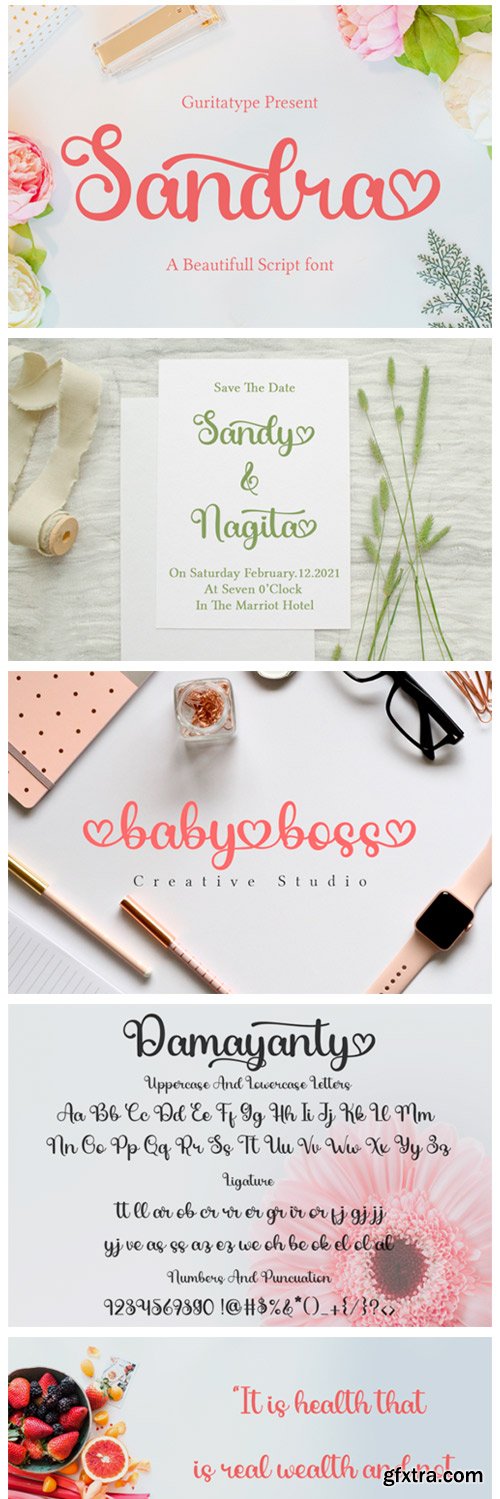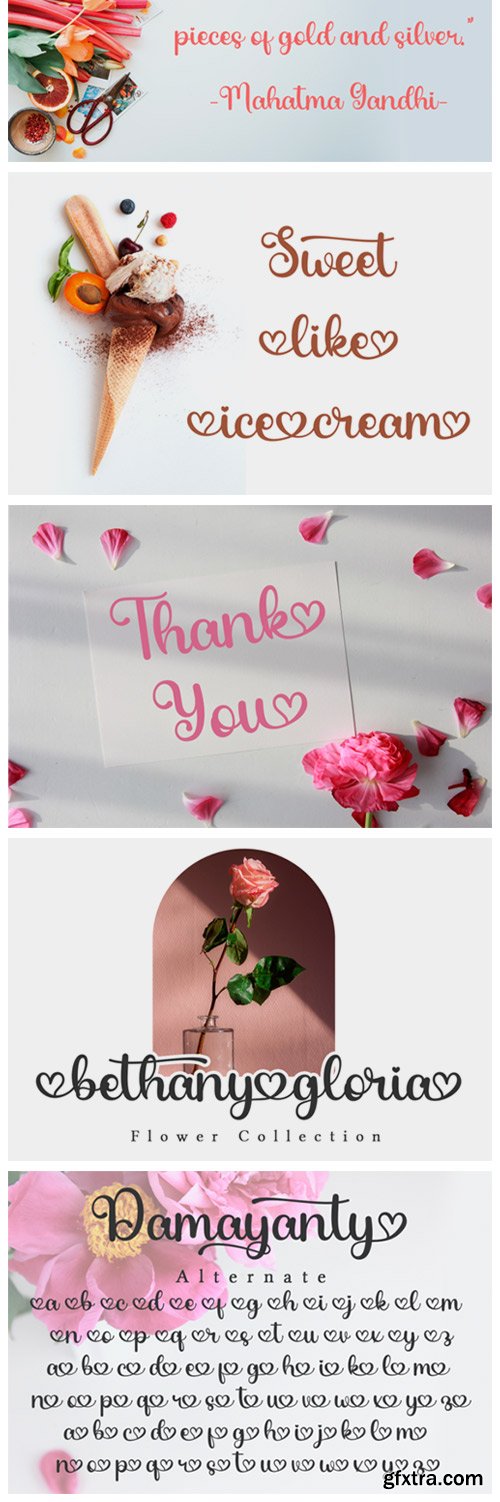
Sandra Font
Sandra is a smooth, elegant and flowing handwritten font. It features lovely characters and has a heart tail which makes it unique and refined. This font is PUA encoded which means you can access all of the glyphs and swashes with ease!